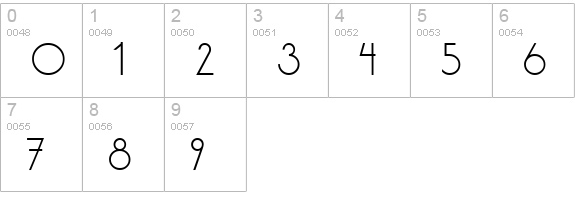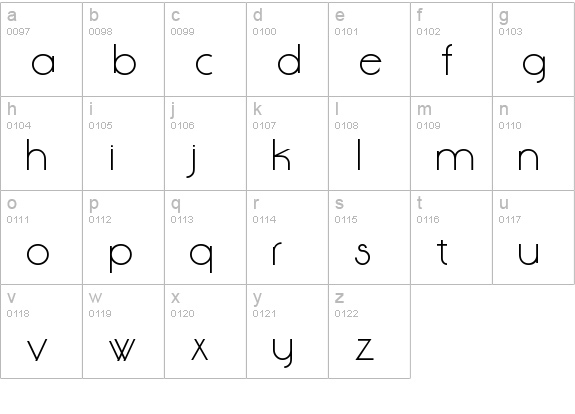
Aase Regular Font Details
Aase Regular is the standard, neutral variant in the Aase typeface family \xE2\x80\x94 well suited to general body text, paragraphs, and standard typographic work.
Aase Regular font is a versatile and elegant typeface that is perfect for a wide range of design projects. This font features clean lines and a modern yet timeless aesthetic, making it suitable for both print and digital applications. With its balanced proportions and carefully crafted letterforms, Aase Regular font effortlessly captures attention and conveys a sense of professionalism. Whether you're designing a logo, creating a brochure, or crafting a website, this font will add a touch of sophistication to your work. One of the best things about Aase Regular font is that it is free to download. That's right, you can get this amazing font without spending a dime. Simply head over to FontsMarket.com and start using this incredible typeface in your projects today. With Aase Regular font, you don't have to compromise on quality or style. Its legibility and versatility make it a go-to choice for designers who want to create impactful and visually appealing designs. Whether you're working on a corporate brand identity or a personal project, this font will elevate your work to the next level. So why wait? Download Aase Regular font from FontsMarket.com and start using it in your designs. With its free availability and exceptional design, this font is a must-have for any designer looking to make a statement. Give your projects a professional edge and make them stand out with Aase Regular font.